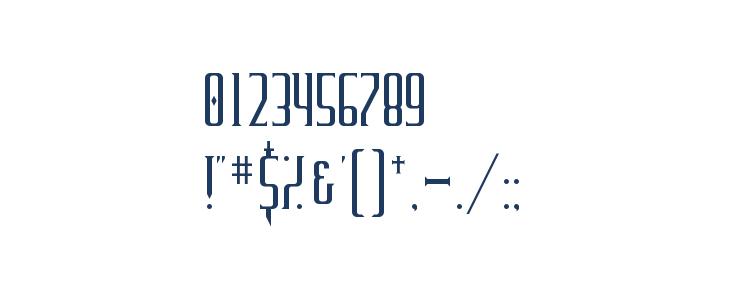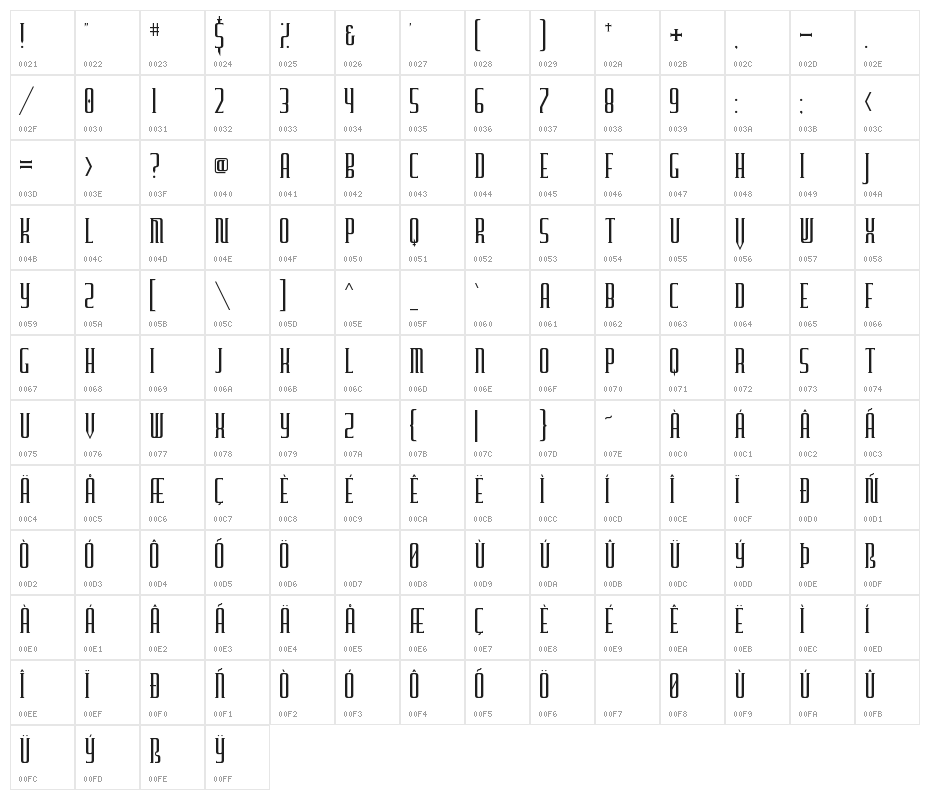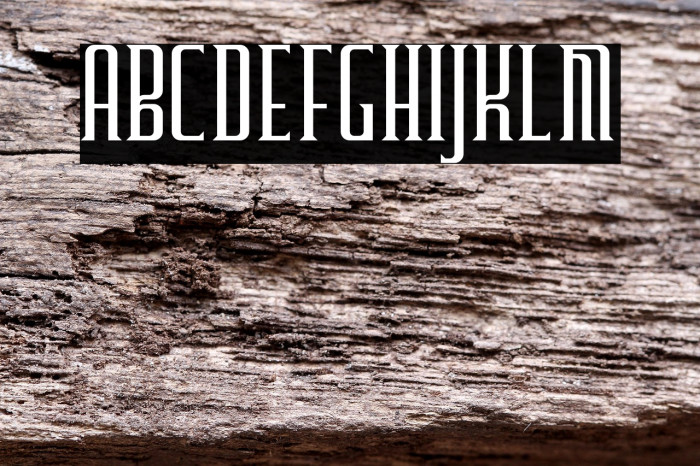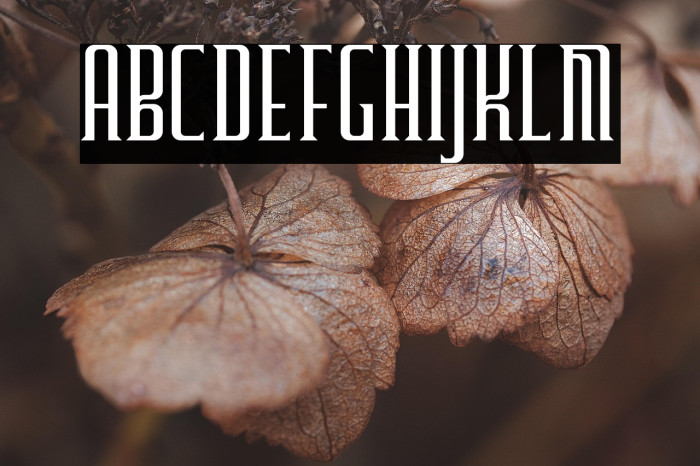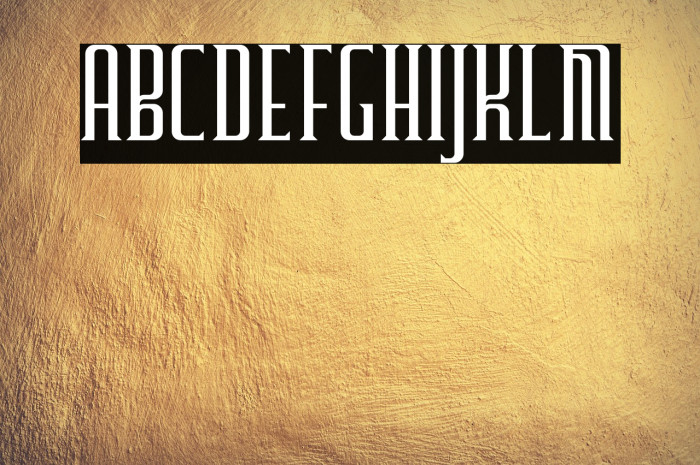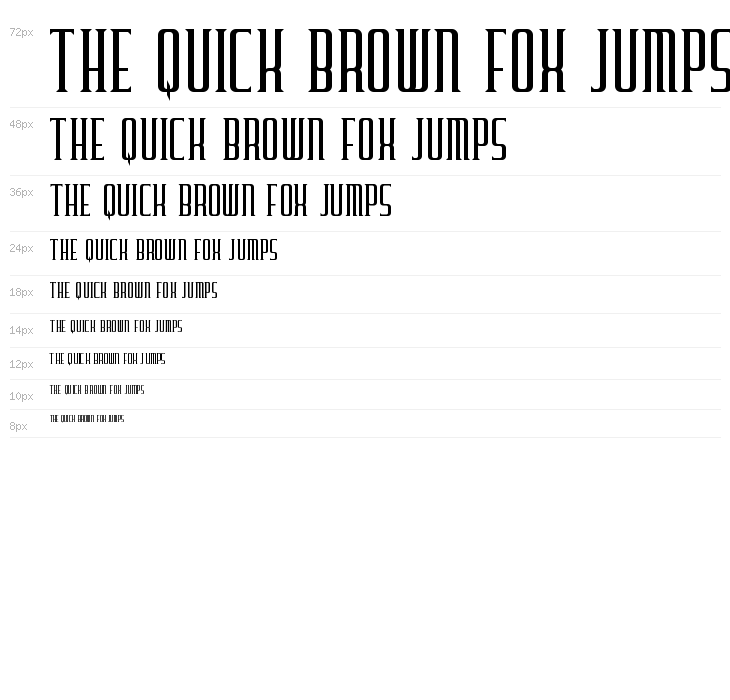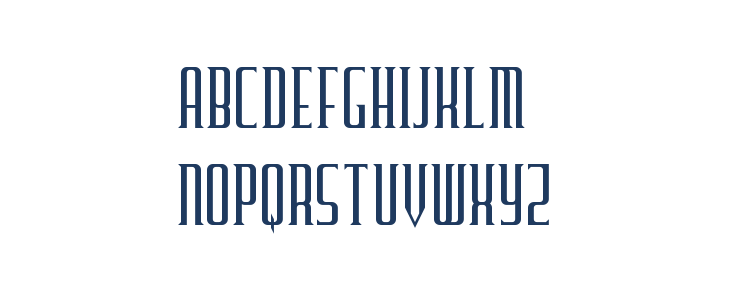
Furgatorio Regular Font
Furgatorio Regular Description
This font features a distinctive, elongated style with sharp, angular serifs that give it a dramatic and bold appearance. The uppercase letters are tall and narrow, creating a striking vertical emphasis. The lowercase letters maintain this elongated form, ensuring consistency across the typeface. Numbers and special characters follow the same design principles, making them easily recognizable and harmonious with the alphabetic characters. The overall design is reminiscent of vintage or gothic styles, yet it maintains a modern edge through its clean lines and precise geometry.
| Overall Style | Vintage, Modern |
| Proposed Projects | Ideal for use in branding, posters, and headlines where a dramatic and eye-catching typeface is desired. |